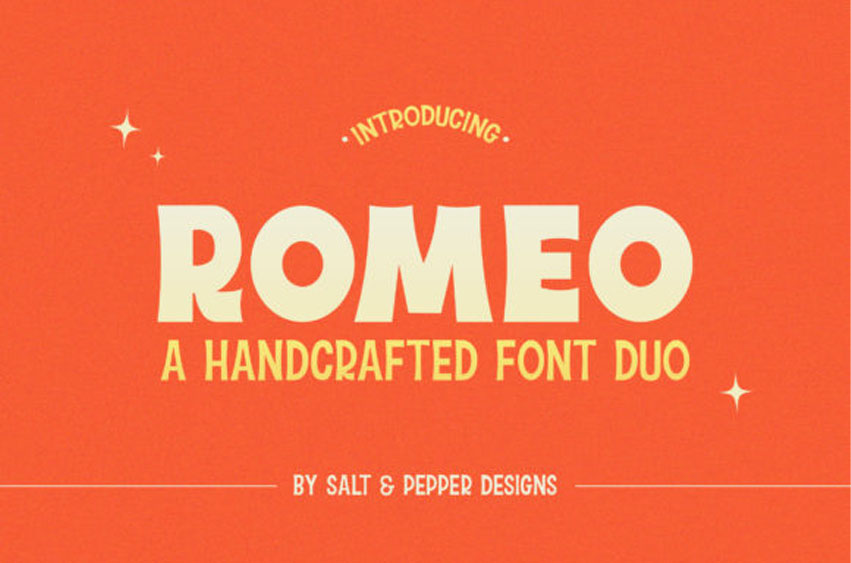
Romeo Duo Font is a cool and vintage styled display font. It is perfect for any branding project such as logos, t-shirt printing, creative products, and more.
It will look extraordinary in a variety of contexts.